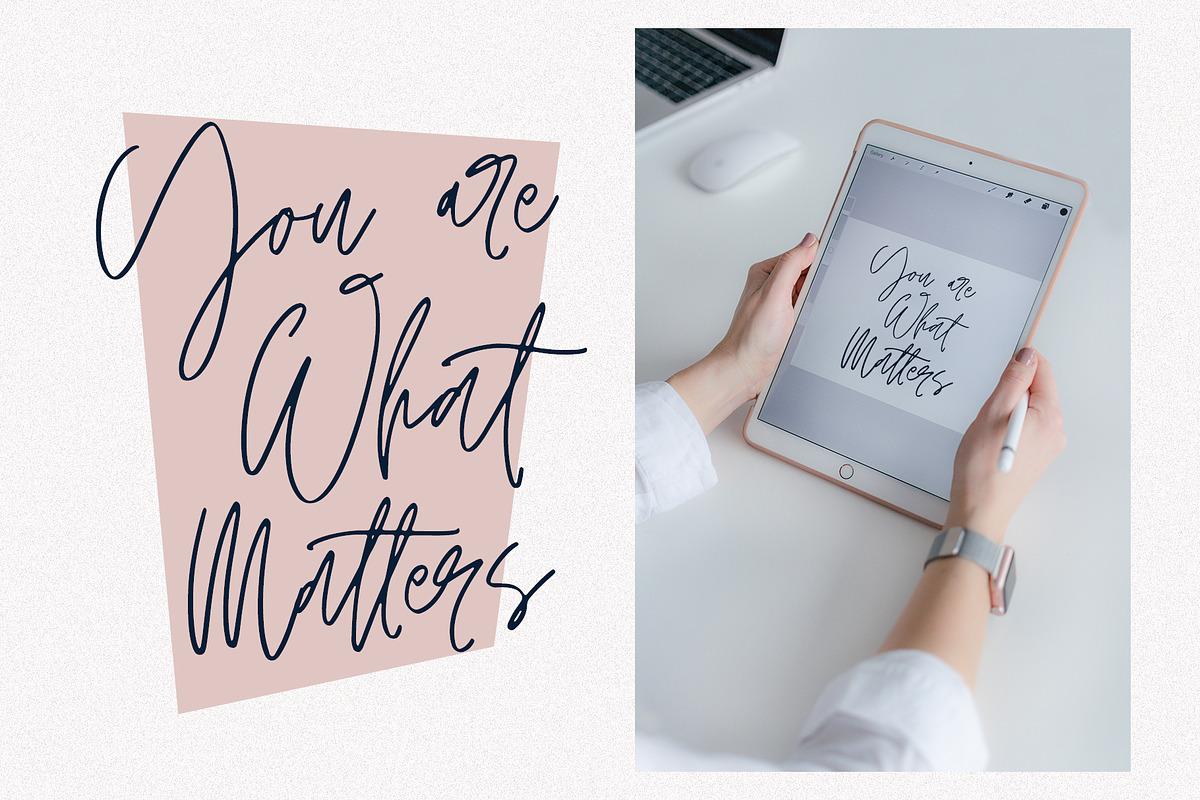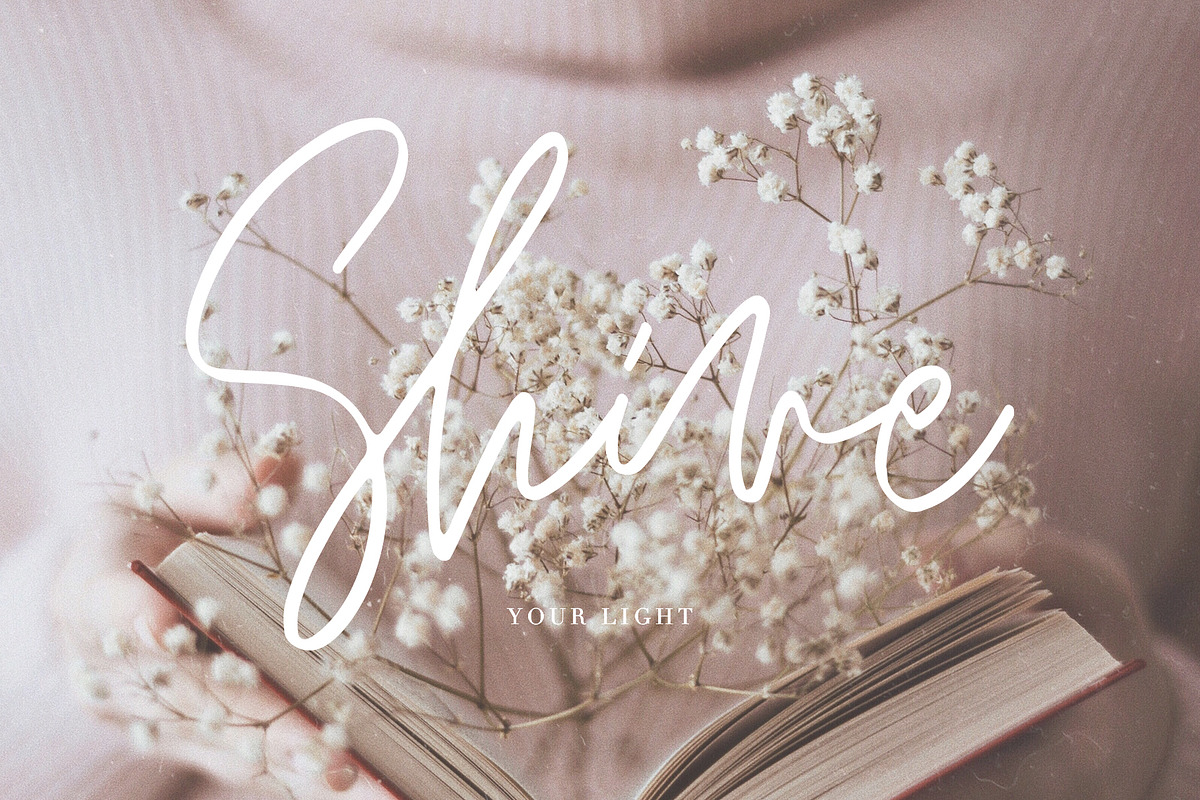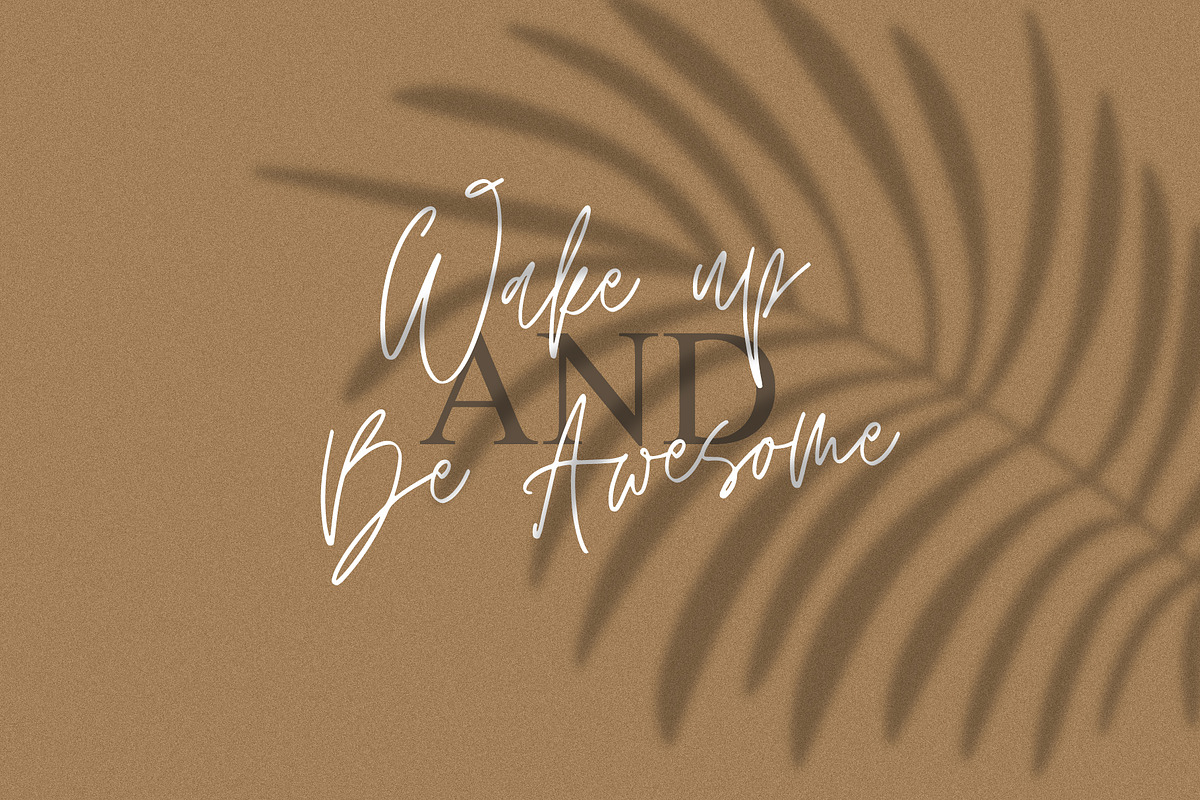
Jonathan Font
Hi everyone. This is my new signature style script. Any inscription will look like a natural stroke. This will give a unique look to your projects. Try my new font, it is lined with all the distances and it looks professional and at ease. It is ideal for signature or design, postcards and greetings, websites or blogs.
• Uppercase and lowercase
• Numbers and punctuation
• Foreign language support
• Ligatures